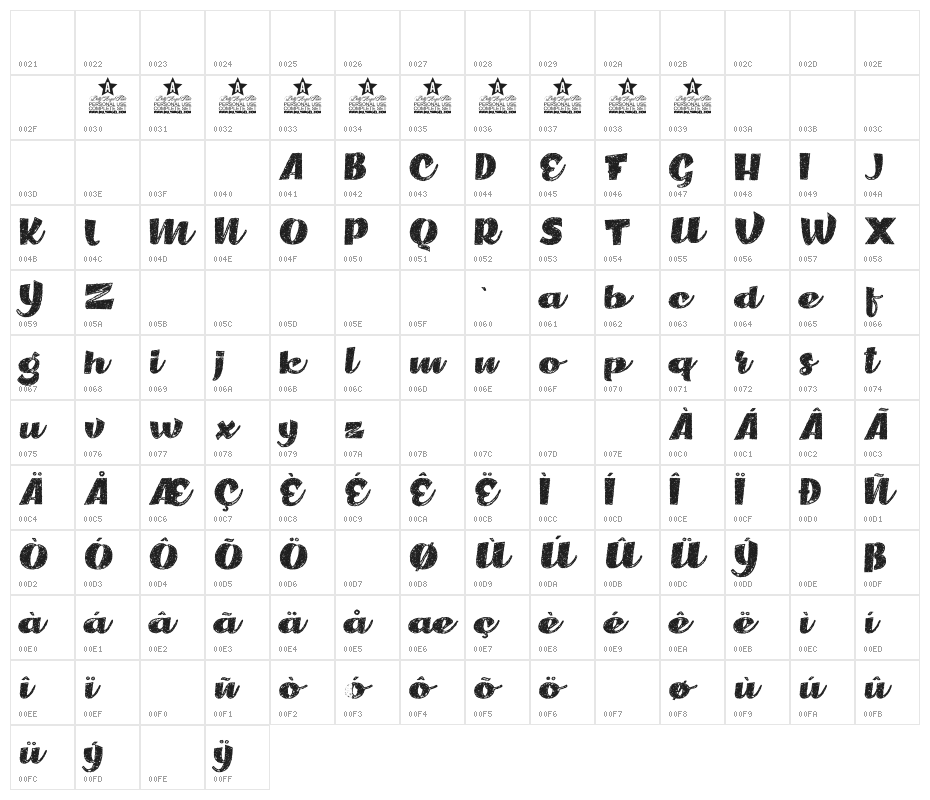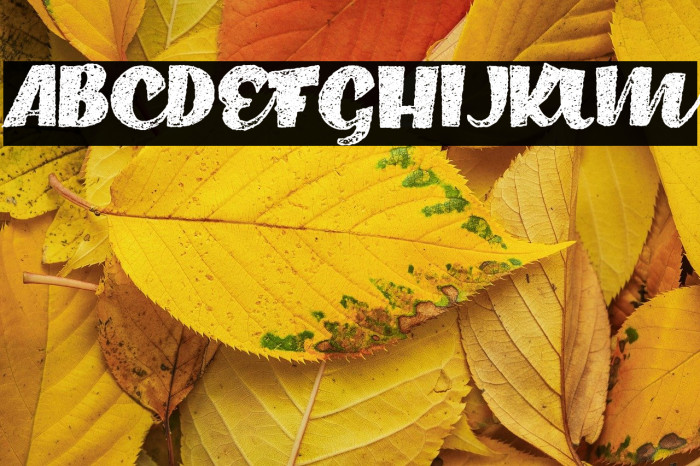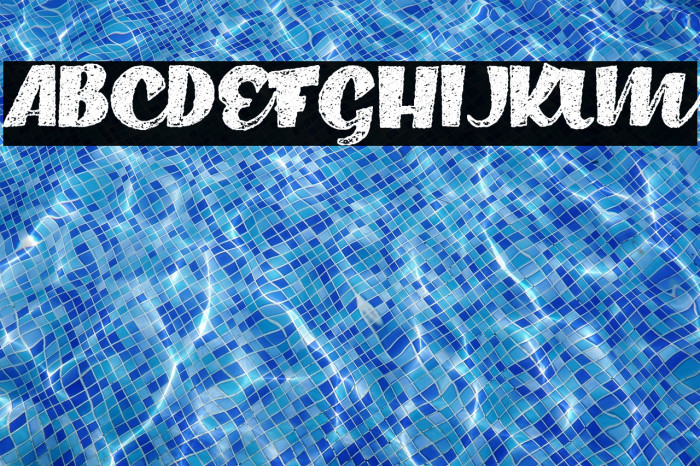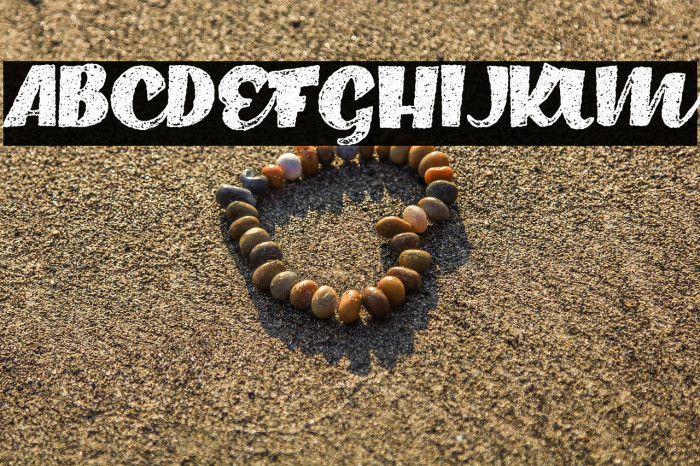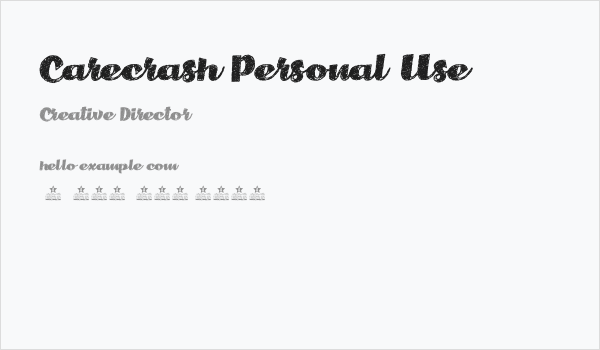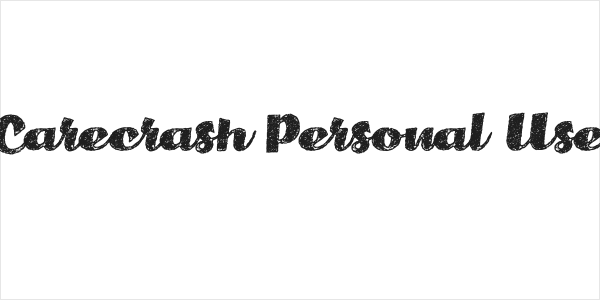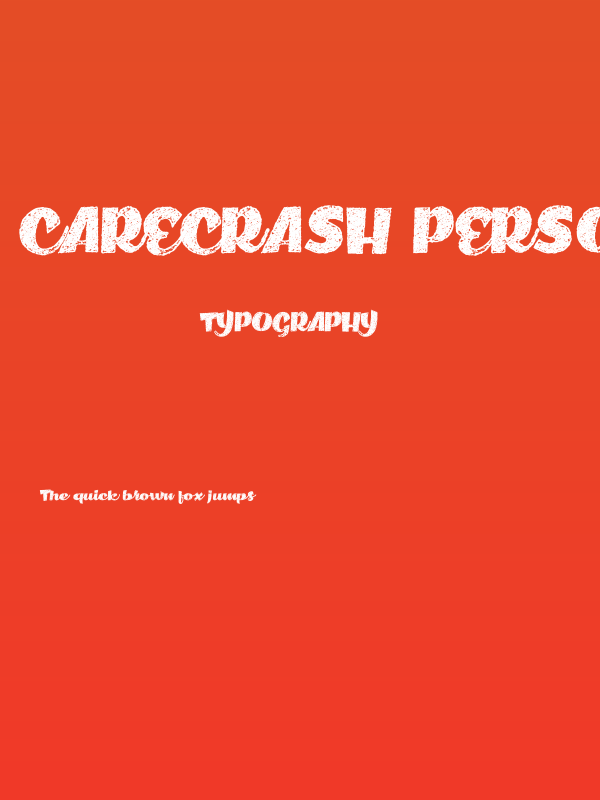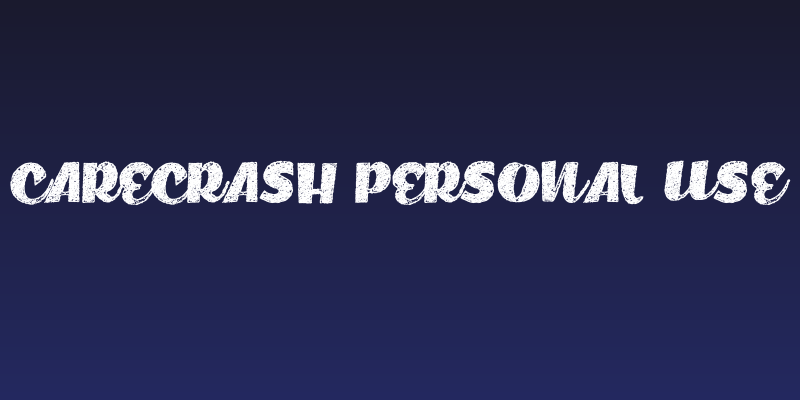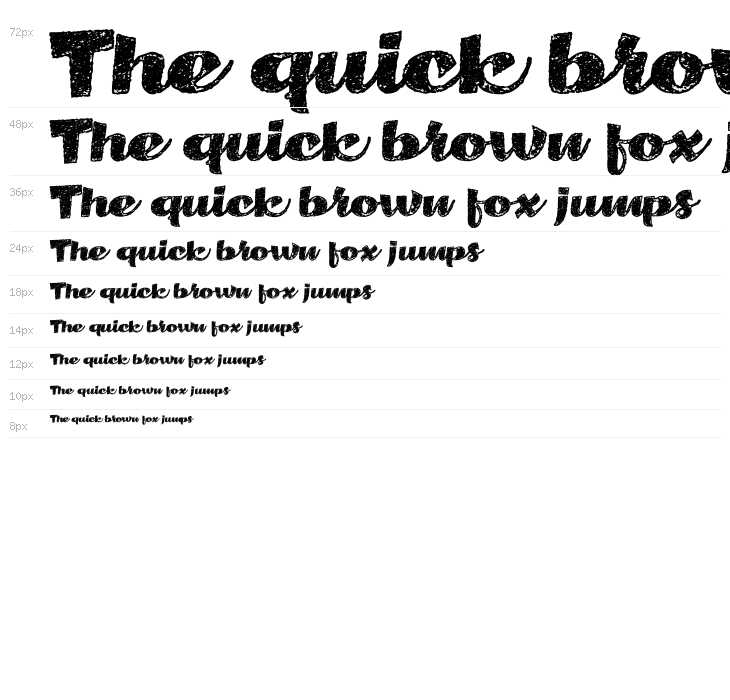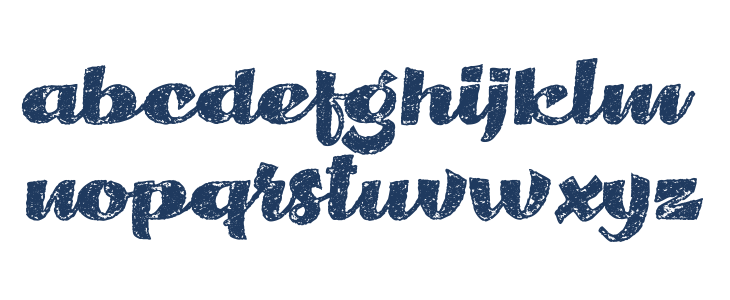
Carecrash Personal Use Font
Carecrash Personal Use Description
This font features a bold, textured style with a distressed appearance, giving it a rugged and vintage feel. The uppercase and lowercase letters are designed with a playful, yet strong aesthetic, characterized by thick strokes and a slightly irregular baseline. The texture adds a unique, handcrafted touch, making it stand out in any design. The font includes a full set of uppercase and lowercase letters, numbers, and a selection of special characters, all maintaining the same distressed style. This font is ideal for projects that require a bold statement with a touch of nostalgia.
| Use Case | Logos, Posters, Branding |
| Proposed Projects | Ideal for posters, logos, branding, and any design needing a bold, vintage touch. |